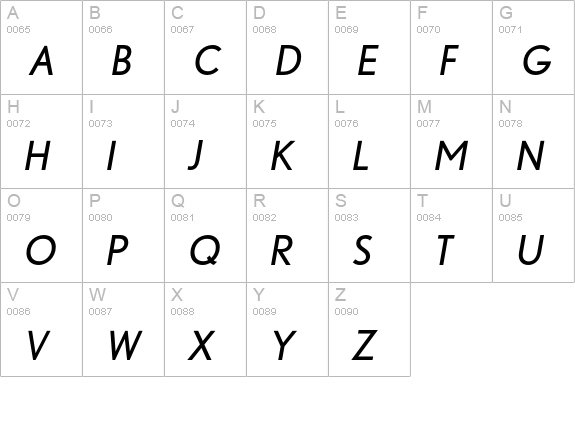
Nobel-RegularItalic Font Details
Nobel-RegularItalic font exudes elegance and sophistication with its sleek, slanted design. The italicized characters add a touch of flair to any text, making it perfect for adding a touch of style to your designs. This versatile font is ideal for a wide range of projects, from branding to editorial design. Best of all, Nobel-RegularItalic font is completely free to use and download at FontsMarket.com. With its modern aesthetic and timeless appeal, this font is sure to elevate your projects to the next level. Don't miss out on the opportunity to enhance your designs with this stunning typeface today!